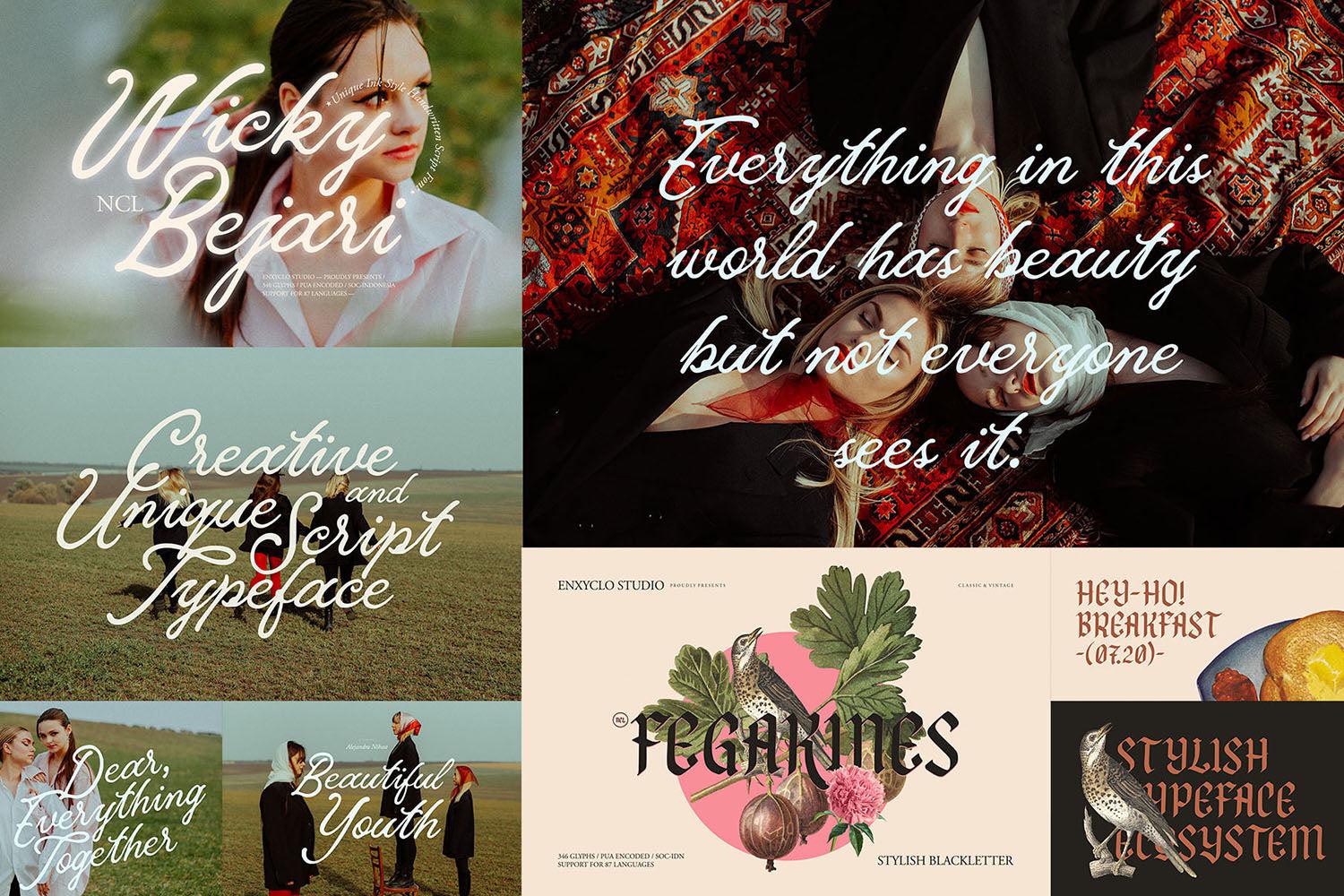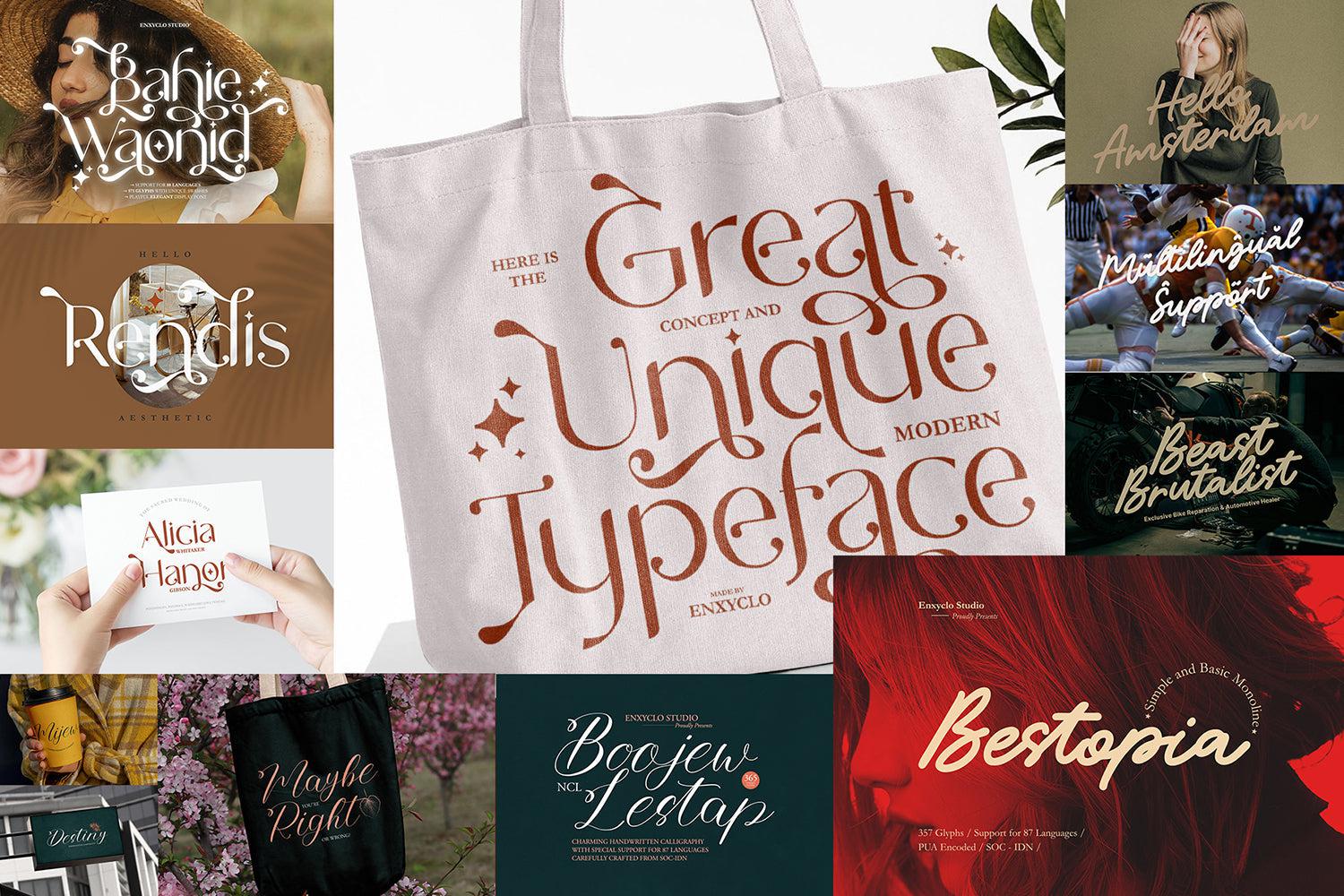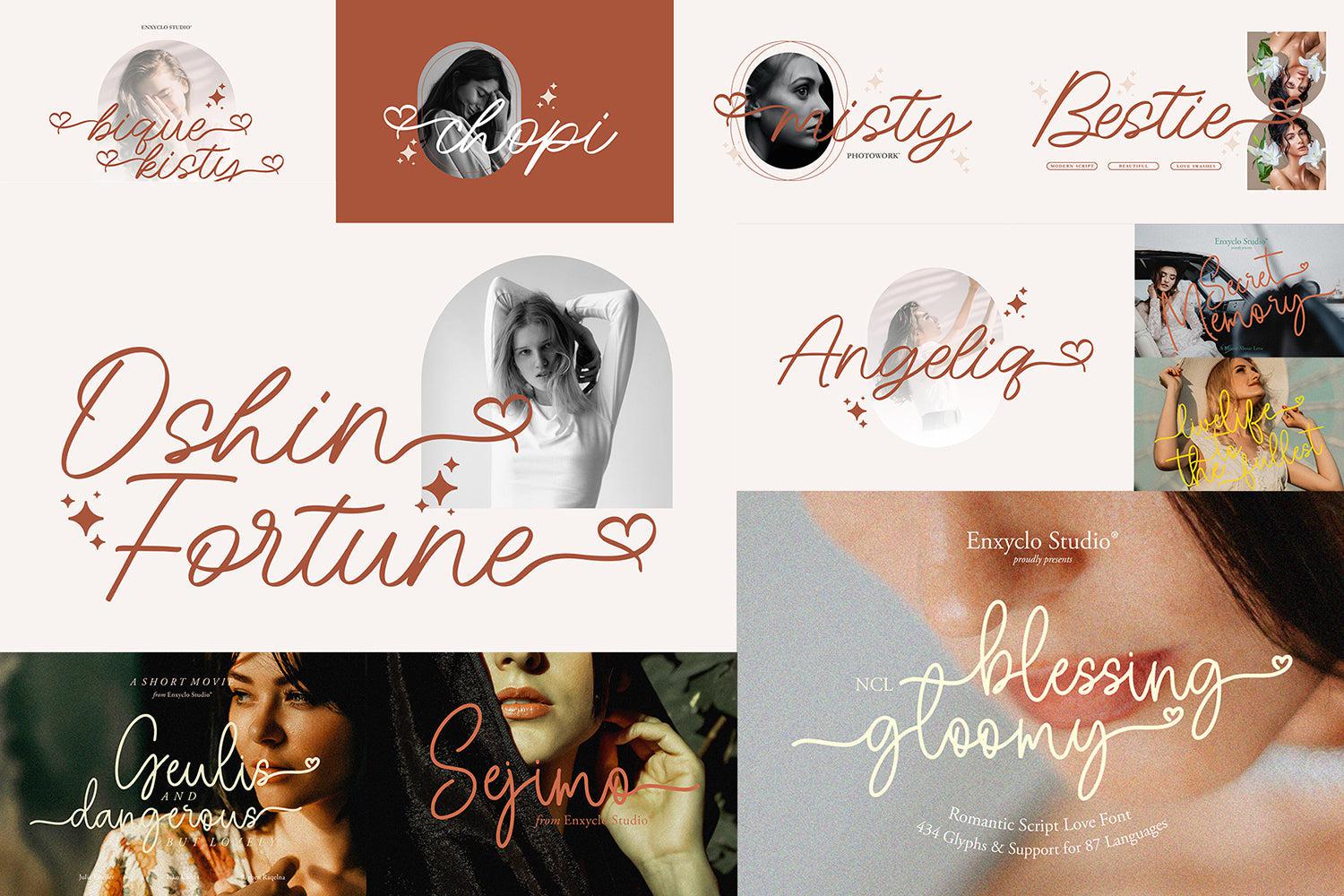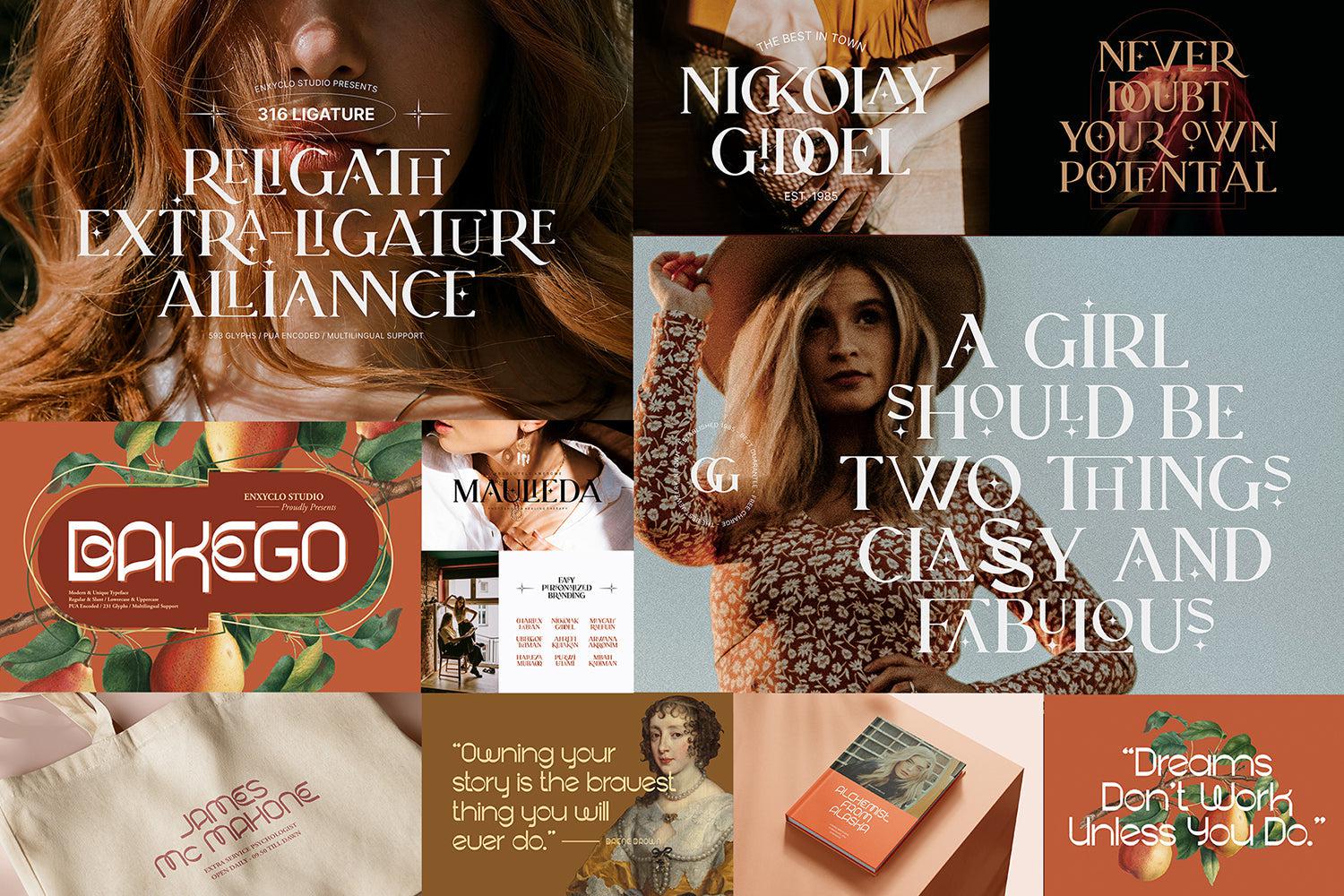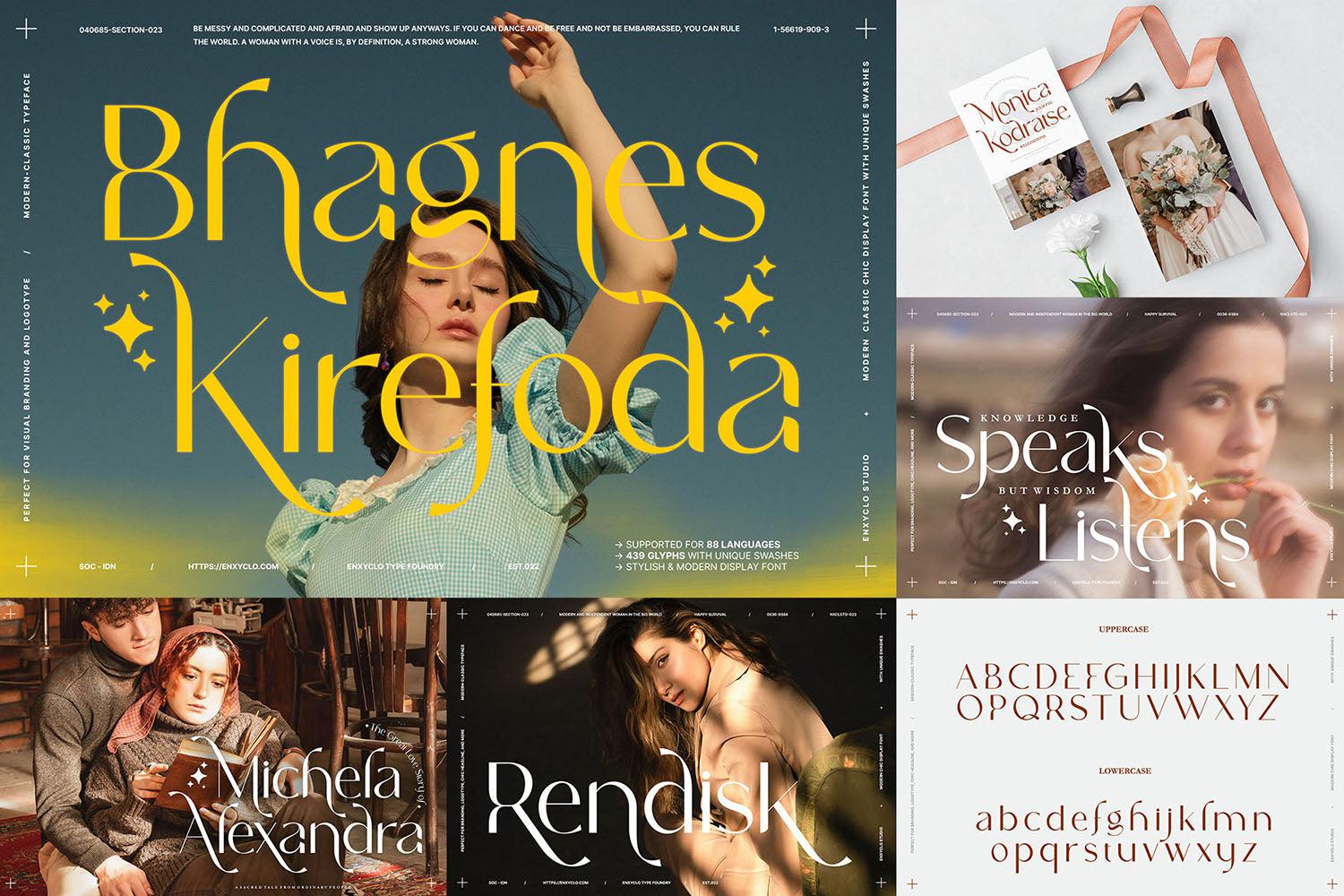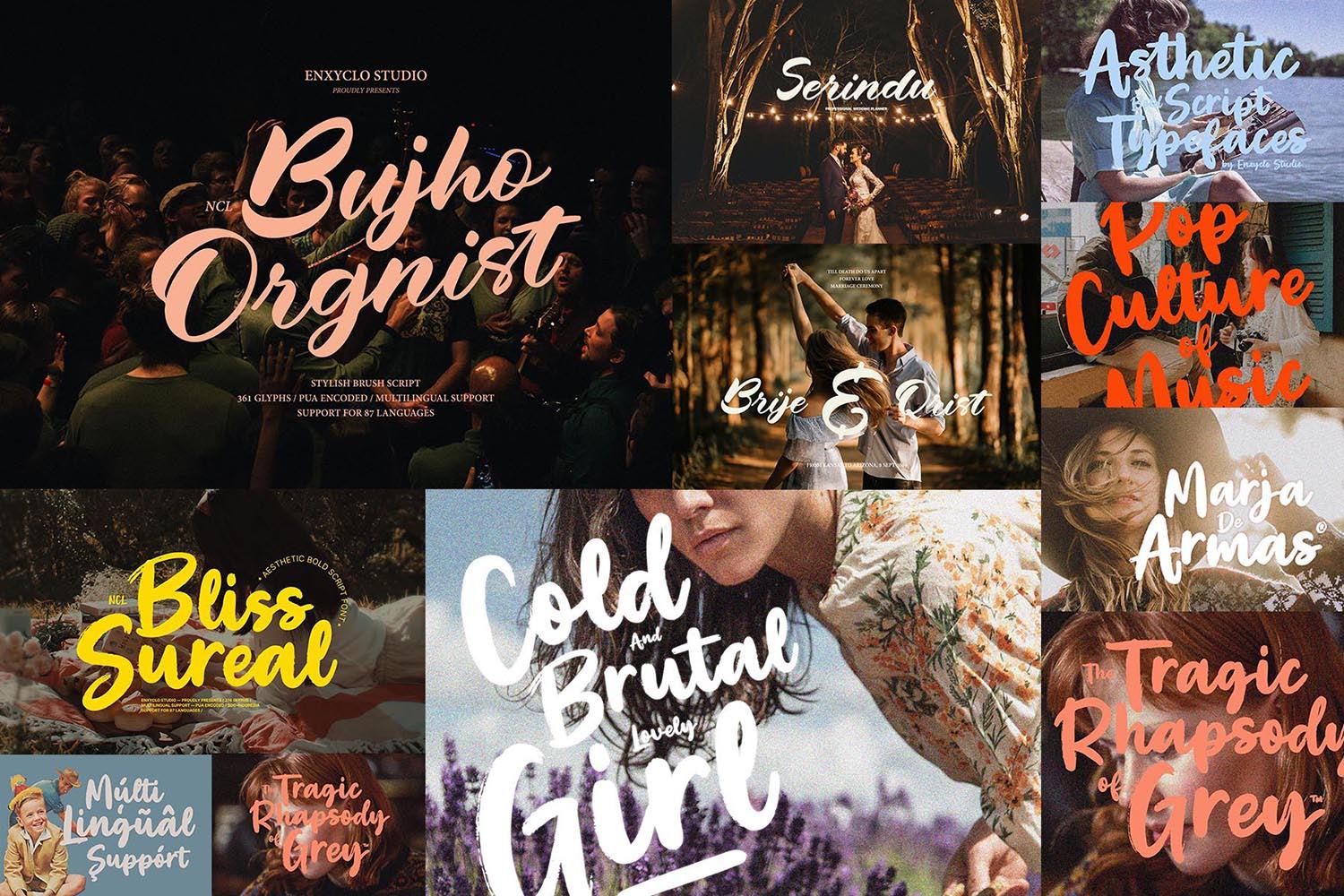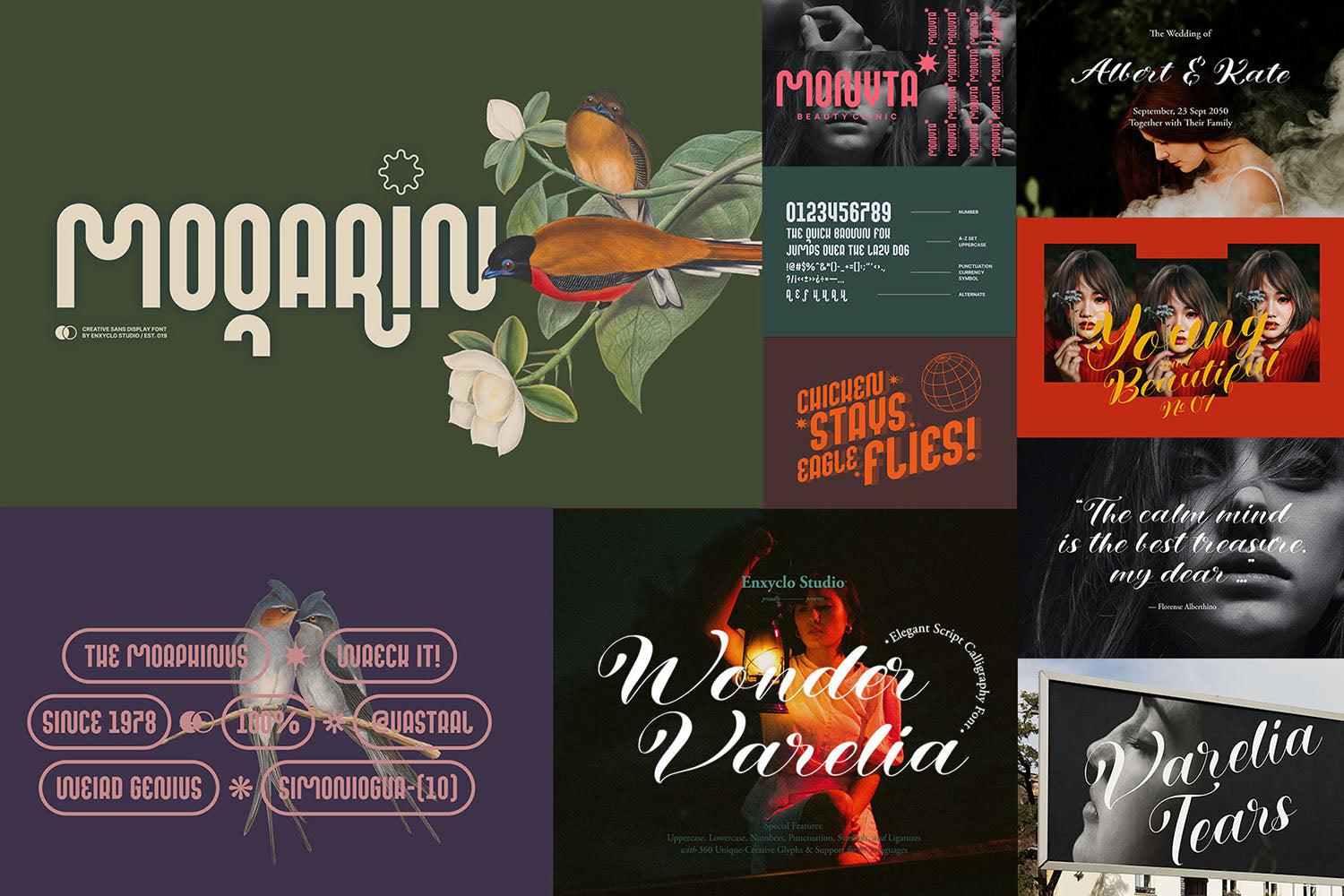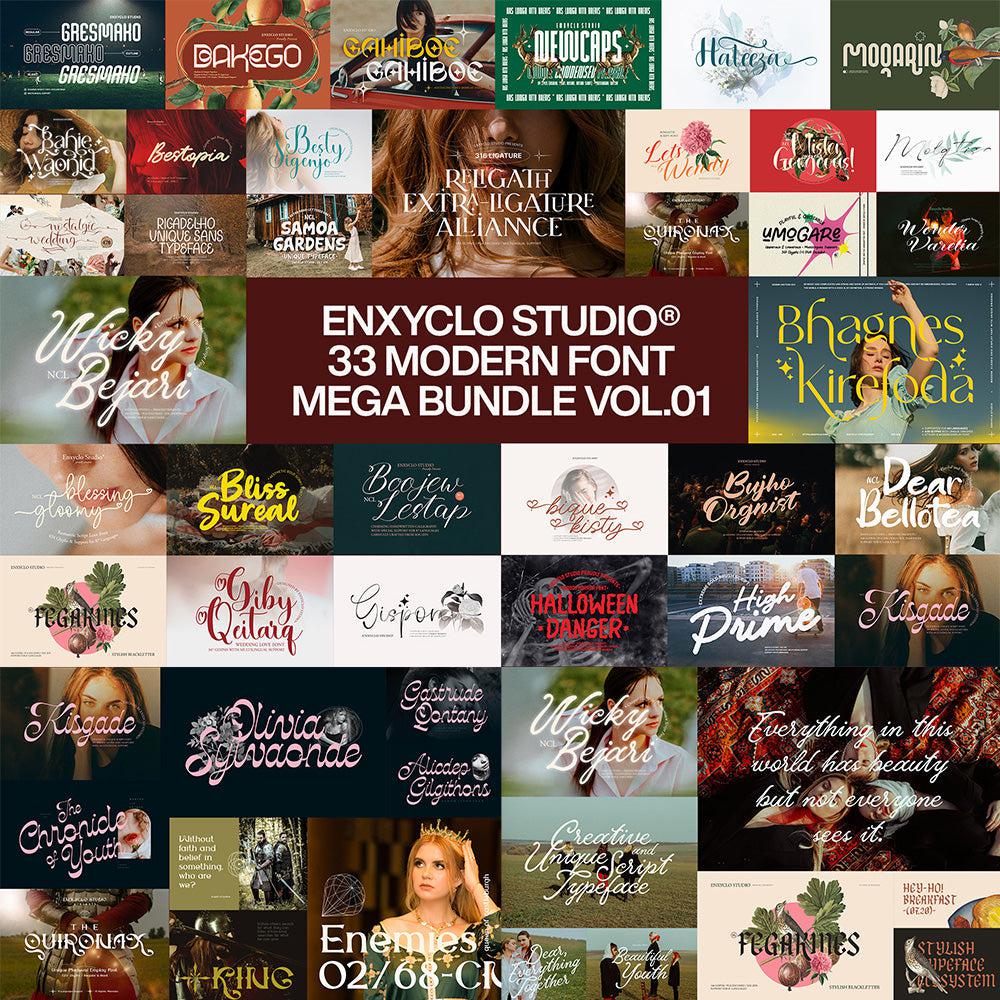
Modern Font Mega Bundle (Vol.01)
The Modern Font Mega Bundle (Vol.01) is a collection of 33 unique modern display fonts. This bundle includes a variety of styles such as handwritten, classic, retro, calligraphy, and script, making it suitable for a wide range of projects including headlines, billboards, magazines, websites, titles, posters, branding, and more.
Ideal for modern graphic design and creative branding projects. Perfect for posters, magazine covers, website titles, and t-shirt designs, ensuring a unique and impactful visual presence.